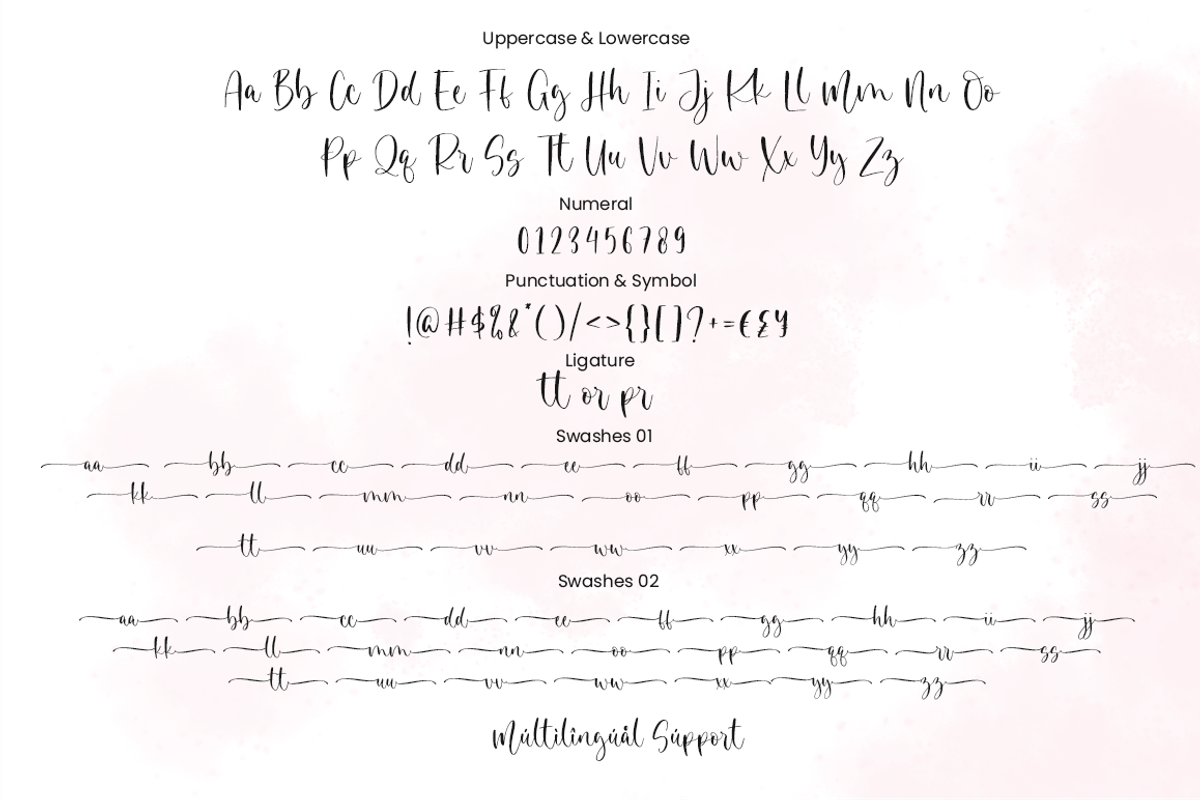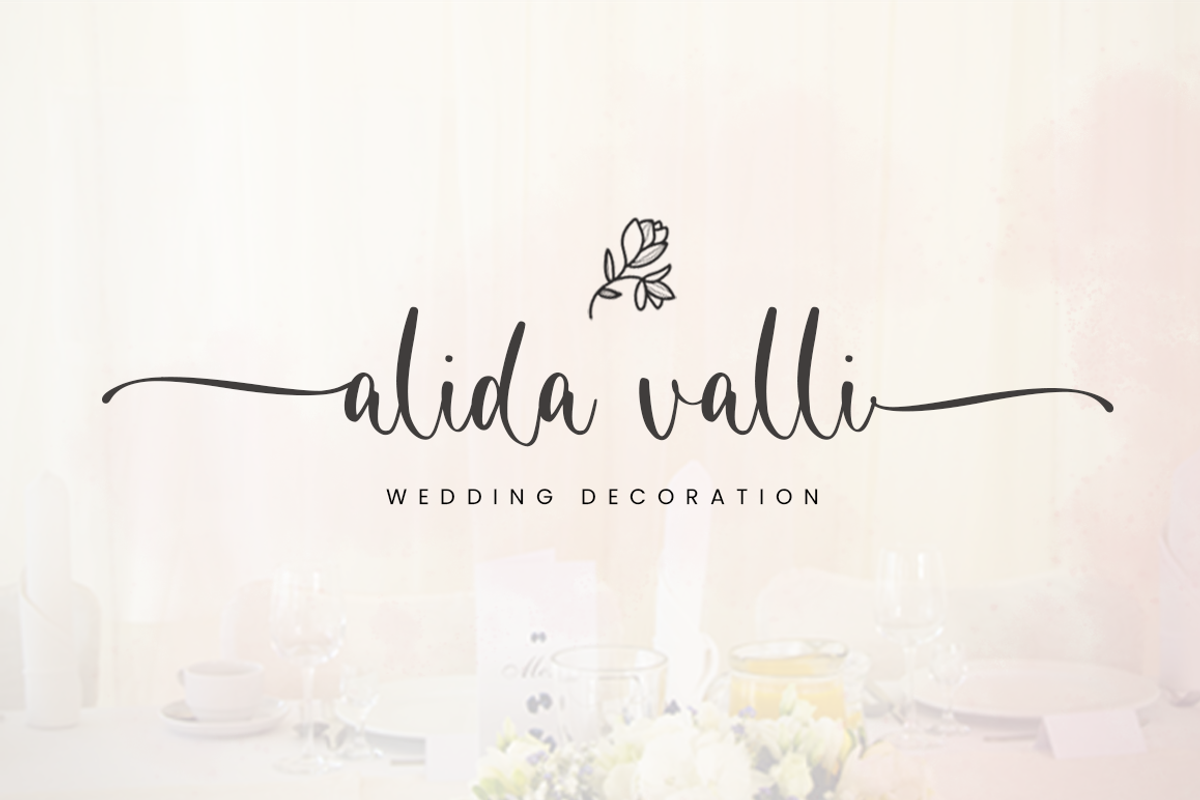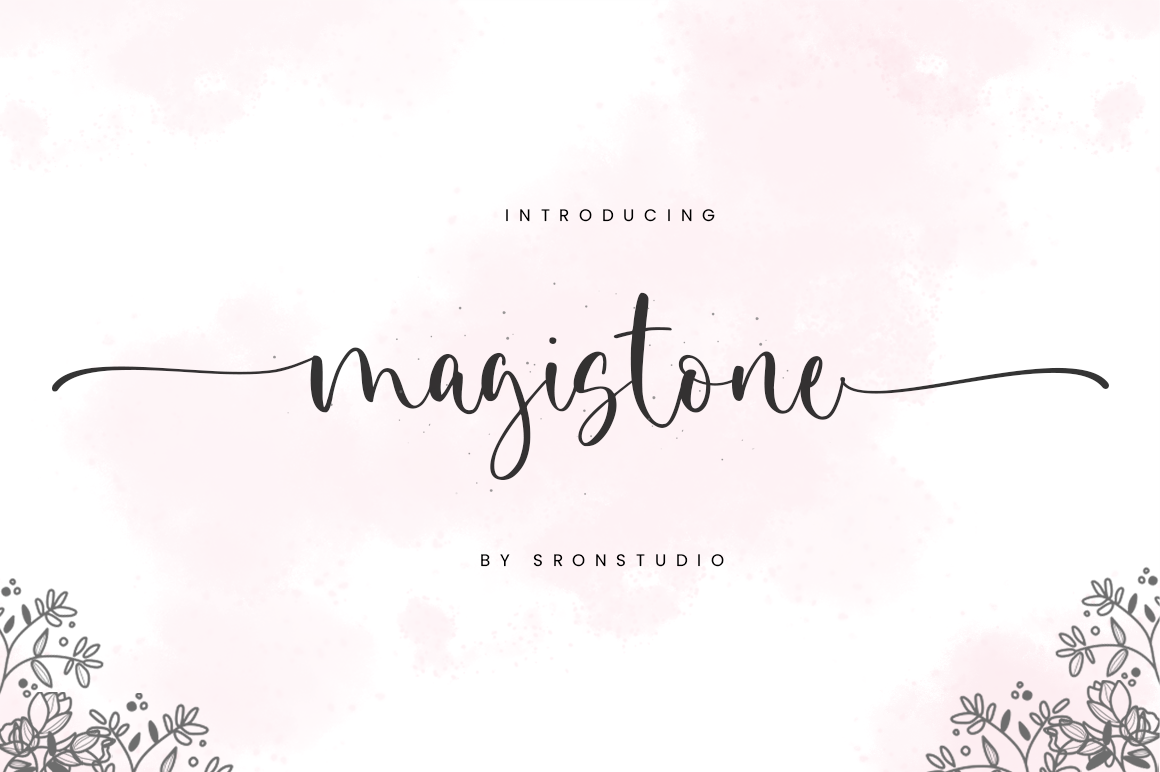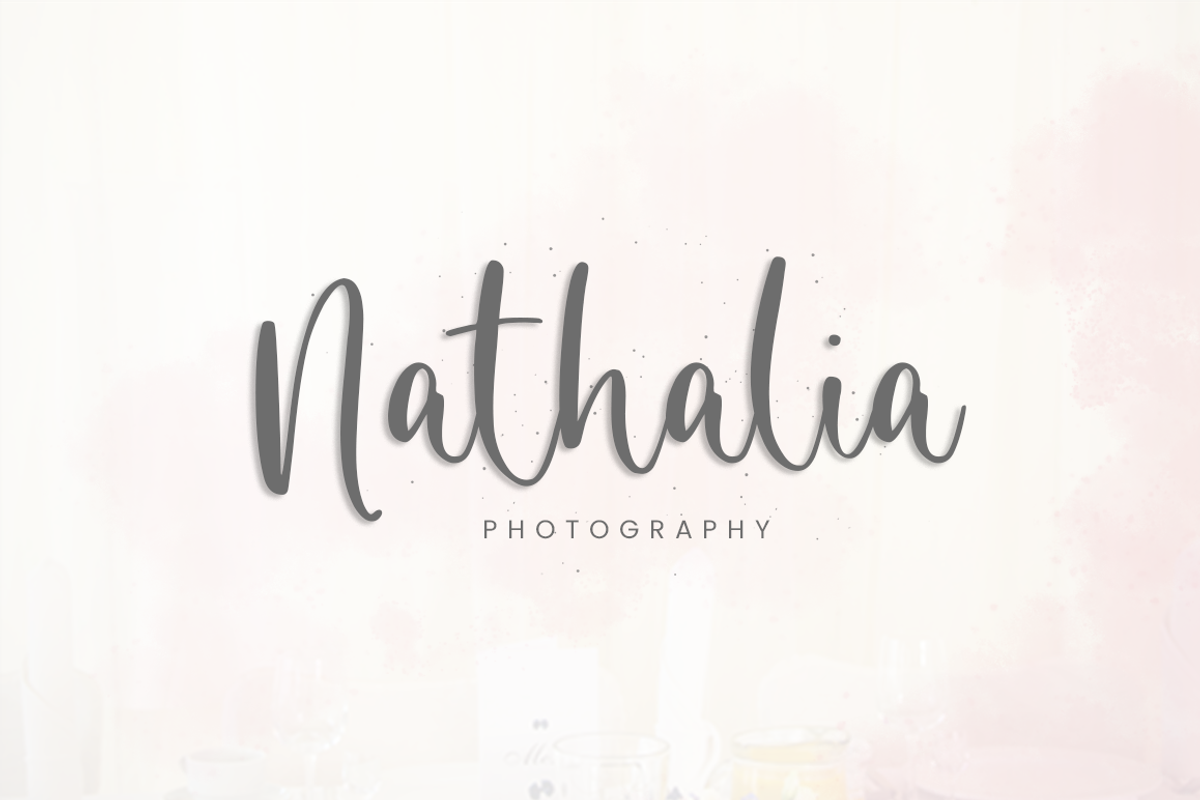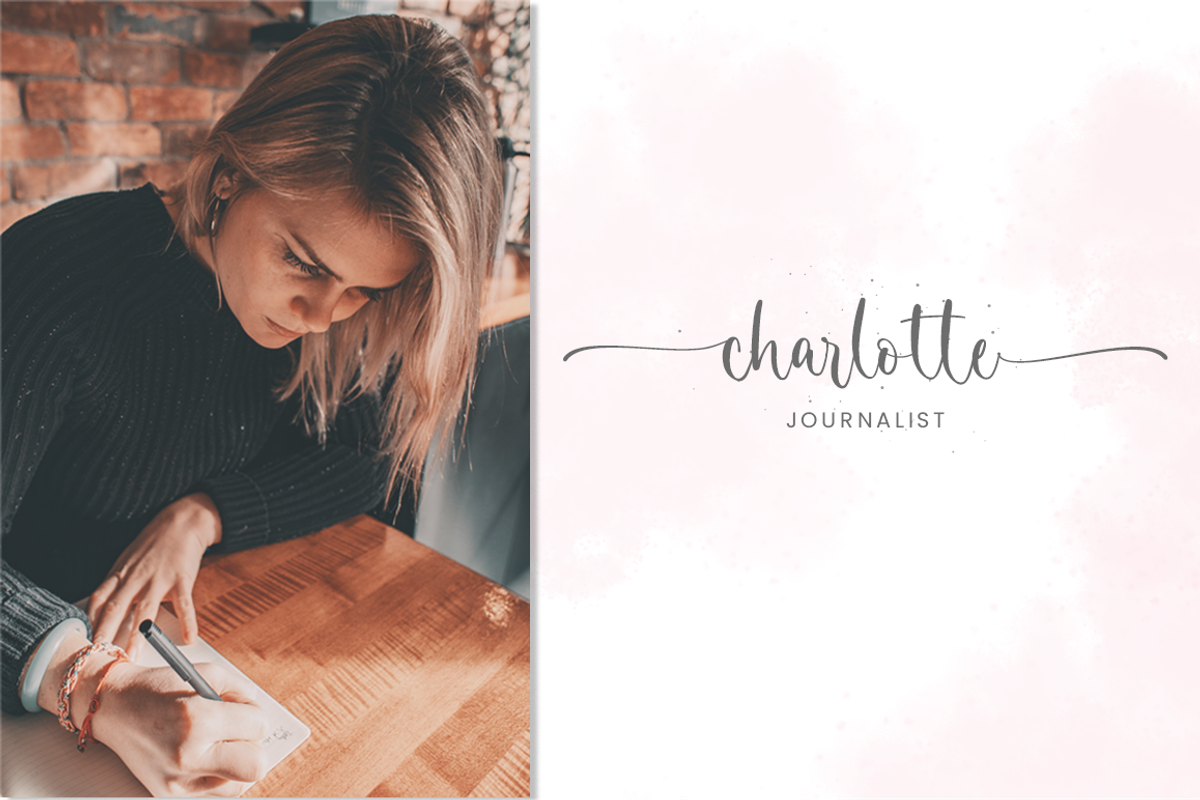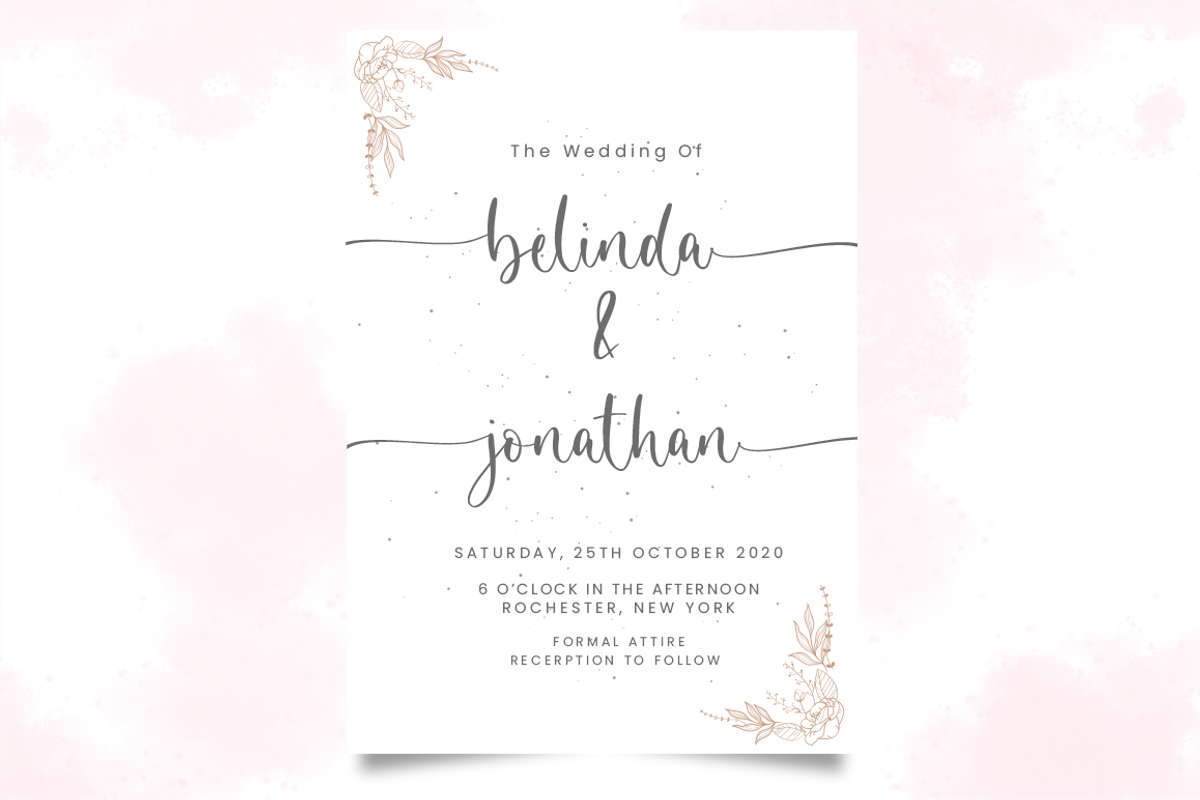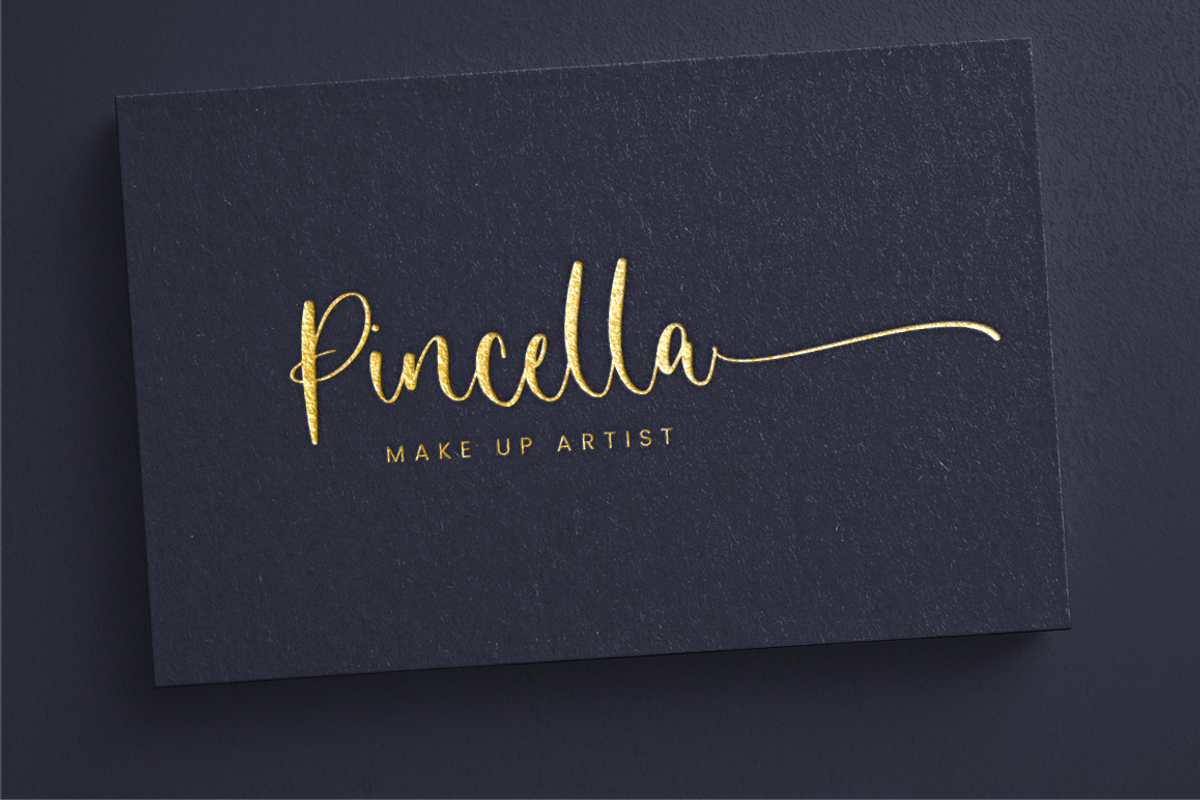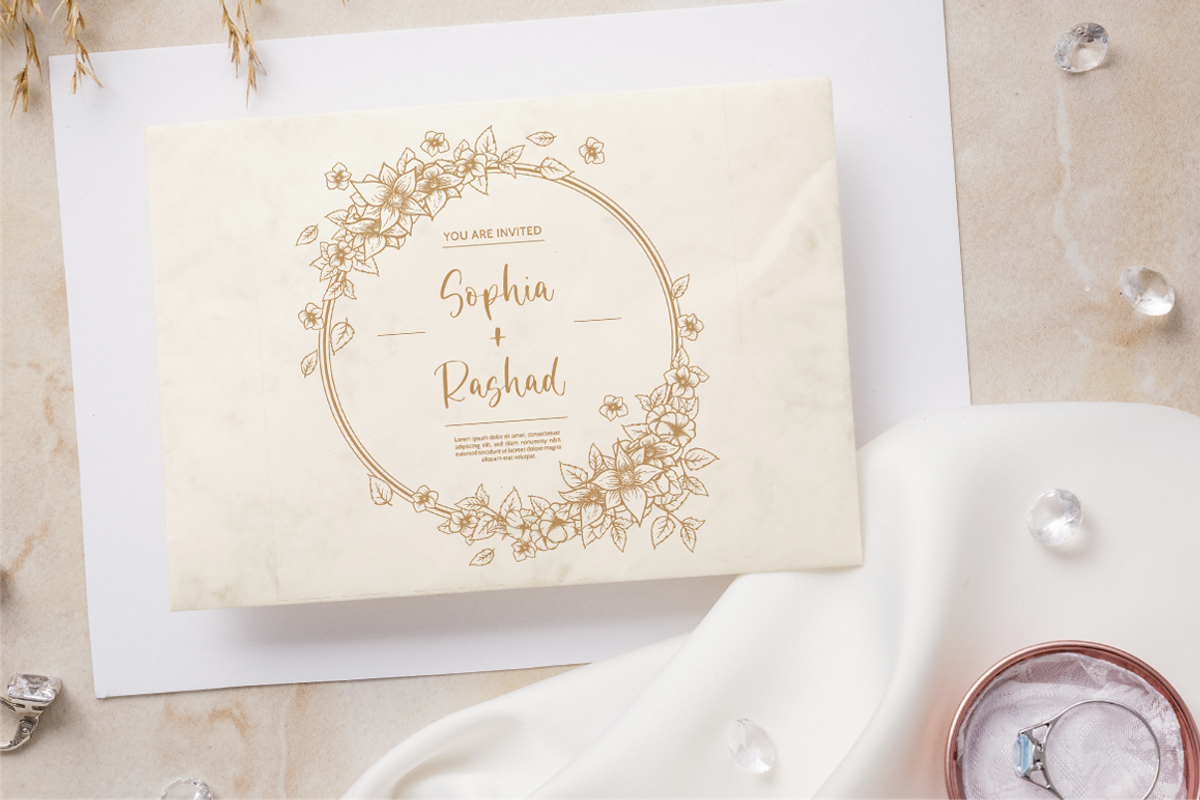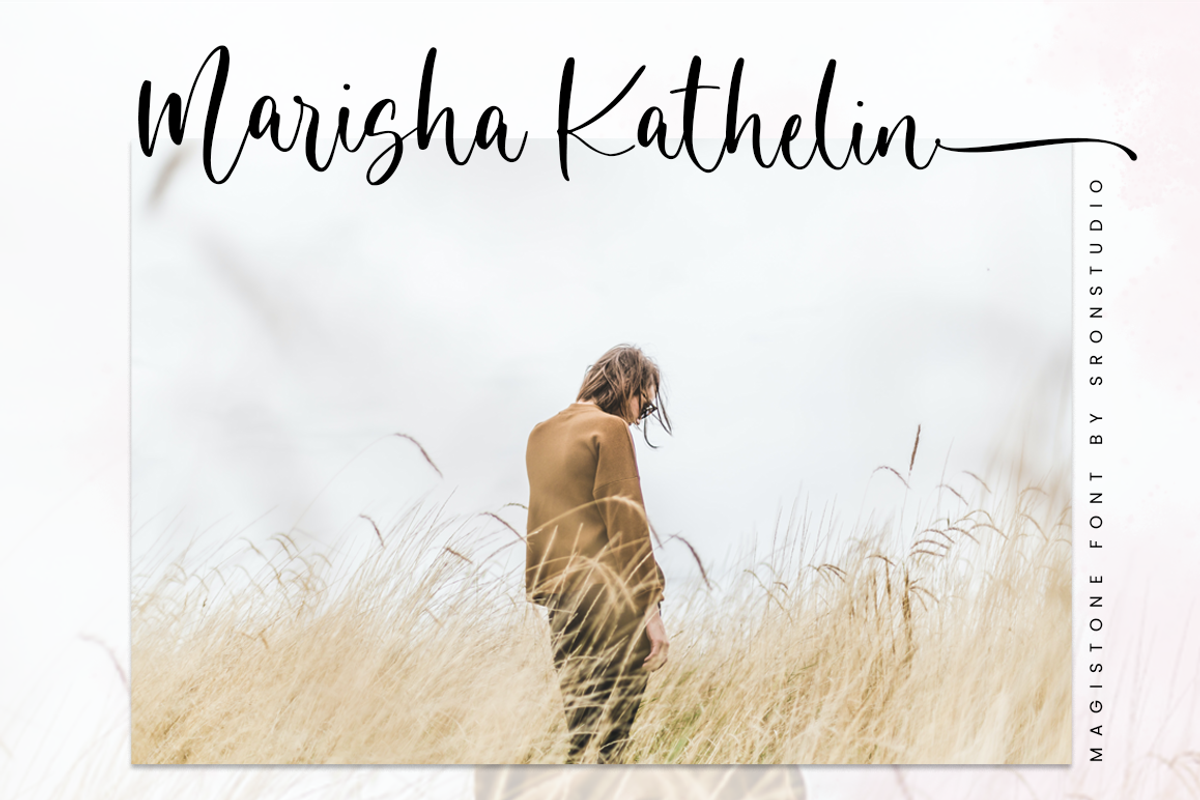
Magistone - Calligraphy Font
Magistone is a beautiful calligraphy font perfect for crafting, branding, invitation, stationery, wedding designs, social media posts, advertisements, product packaging, product designs, label, photography, watermark, special events or anything
Magistone comes with full set of uppercase and lowercase letters, swash alternates, ligatures,multilingual symbols, numerals and punctuation.